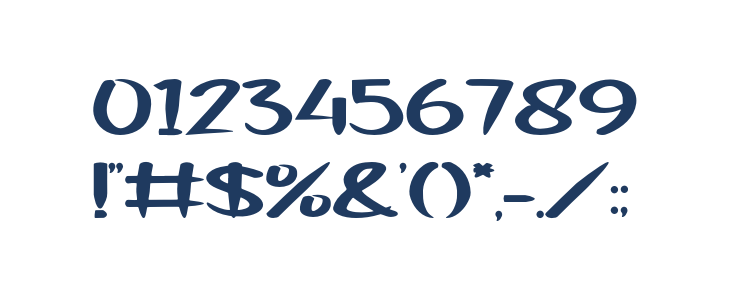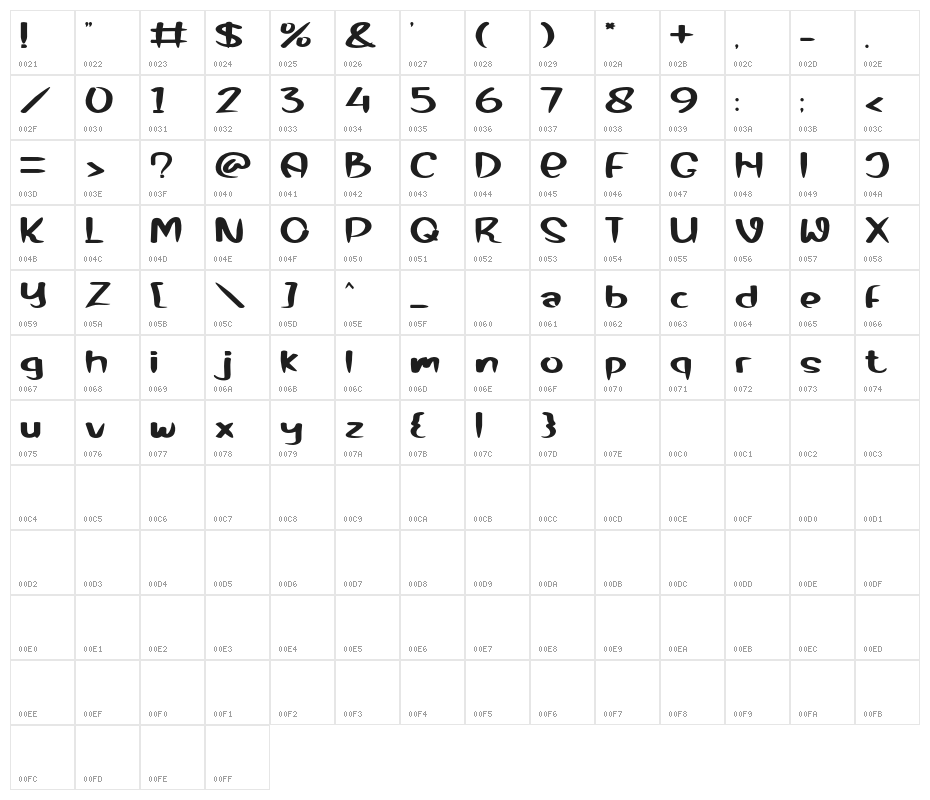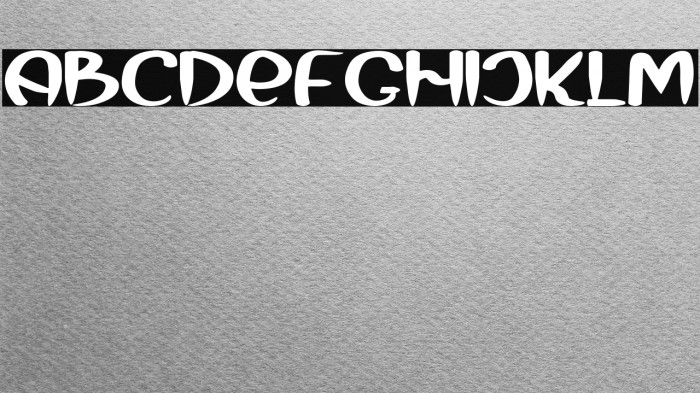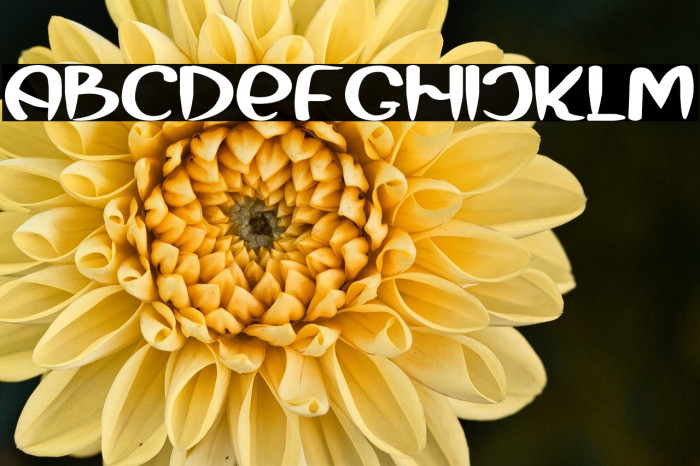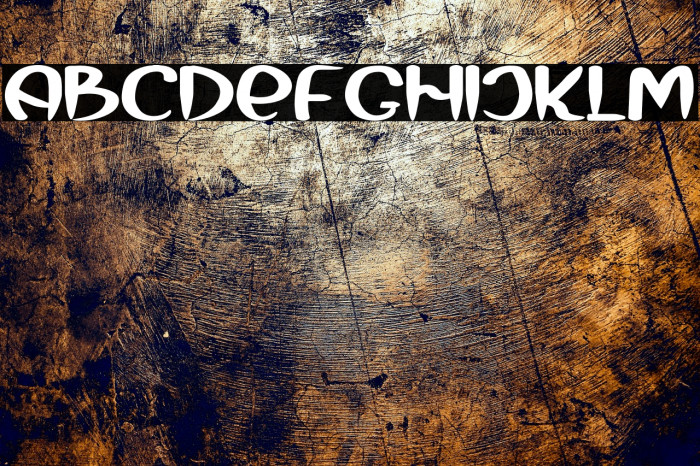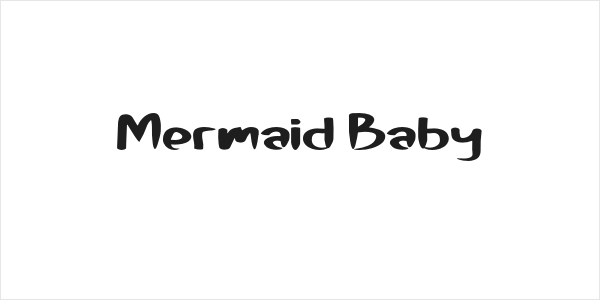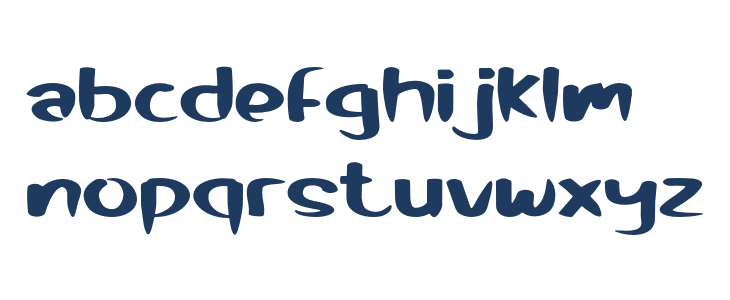
Mermaid Baby Font
Mermaid Baby Description
This playful and whimsical font features bold, rounded characters with a hand-drawn aesthetic. The letters have a smooth, flowing quality, with some characters exhibiting slight variations in stroke thickness, adding to its charm. The uppercase and lowercase letters maintain a consistent style, while the numerals and special characters complement the overall design. Its unique and friendly appearance makes it suitable for creative projects.
| Proposed Projects | Ideal for children's books, playful branding, greeting cards, and creative posters. |